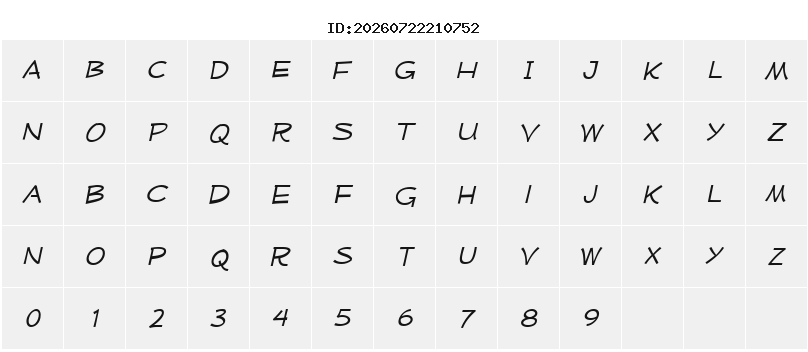
Mufferaw Xp Preview
• Font Name: Mufferaw Xp
• Font ID: TYPO: Mufferaw Xp Italic: 2004
• Full Font Name: Mufferaw Xp Italic
• Version: Version 2.201 2004
• PostScript Name: MufferawXp-Italic
• Character Count: 260
• Designer: Ray Larabie
About Mufferaw Xp.ttf
Mufferaw Xp.ttf is a modern, elegant sans-serif font designed for ultimate readability and visual harmony. Perfect for branding, headlines, web design, and print materials.